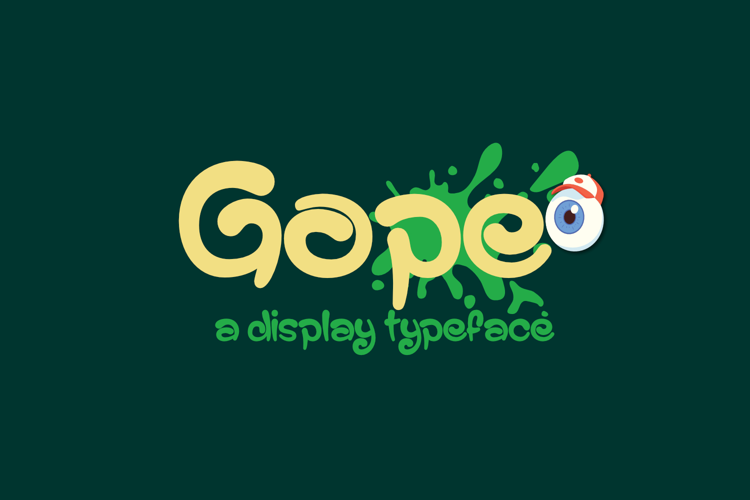
Logo Font!! Gope Typeface
? G O P E . T Y P E F A C E
Welcome to the Sameeh Media. We create the fonts that help you make a great design for your work. Logo Font!! Gope Typeface, designed to combine perfectly and allow you to create stunning hand-lettering quickly and easily. Ideal for giving your brand text that final touch of finesse!